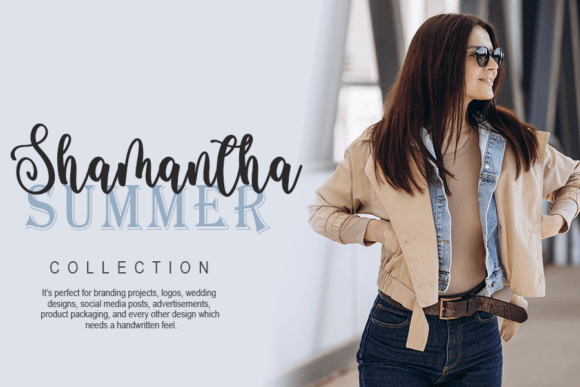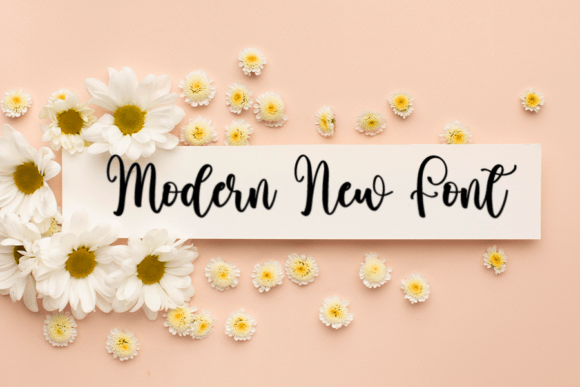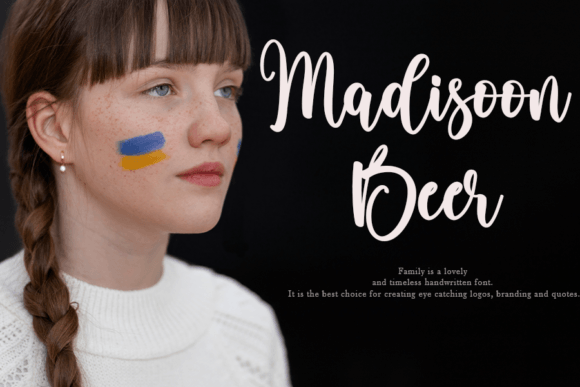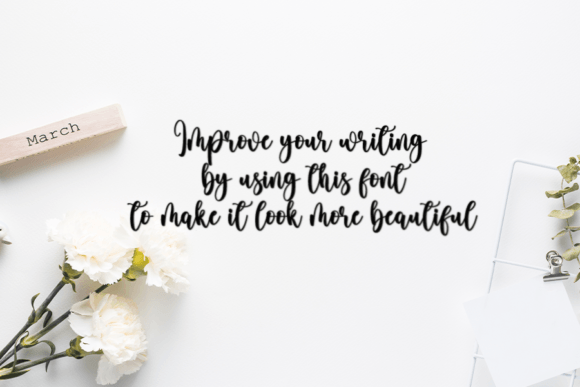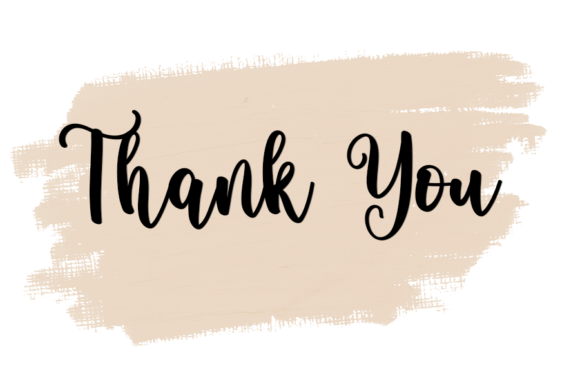
Candy Floss Font: The Sweetest Addition to Your Design Collection
Are you on the hunt for a font that embodies the whimsy and charm of celebration days? Look no further than the Candy Floss Font! This delightful, handwritten font is perfect for adding a touch of sweetness to your designs, whether you’re creating wedding invitations, greeting cards, or any other project that requires a soft, characterful flair.
The Charm of Candy Floss Font
The Candy Floss Font is a characterful and cute handwritten font that is sure to capture the hearts of designers and crafters alike. Its unique, whimsical feel makes it an excellent choice for designs that require a personal touch. Whether you’re looking to create eye-catching wedding invitations, heartfelt greeting cards, or festive party decorations, this font is sure to bring a smile to your face and a touch of magic to your designs.
What Makes Candy Floss Font So Special?
So, what sets the Candy Floss Font apart from other fonts in your collection? Here are just a few features that make it a standout:
- Characterful and Cute: The Candy Floss Font boasts a charming, handwritten feel that’s perfect for adding a personal touch to your designs.
- PUA Encoded: This font is PUA (Private Use Area) encoded, which means you can easily access all the glyphs and ligatures. This makes it simple to get the most out of your font and create unique, eye-catching designs.
- Perfect for Celebration Days: From weddings and anniversaries to birthdays and holidays, the Candy Floss Font is the perfect choice for any celebration.
Using Candy Floss Font in Your Designs
So, how can you use the Candy Floss Font in your designs? The possibilities are endless! Here are a few ideas to get you started:
- Wedding Invitations: Create beautiful, one-of-a-kind wedding invitations that set the tone for a magical and memorable day.
- Greeting Cards: Add a personal touch to your greeting cards with the Candy Floss Font’s charming, handwritten feel.
- Party Decorations: Use the Candy Floss Font to create festive party decorations, such as banners, garlands, and more.
- Digital Designs: The Candy Floss Font is also perfect for digital designs, such as social media graphics, blog posts, and more.
Tips and Tricks for Getting the Most Out of Candy Floss Font
To get the most out of the Candy Floss Font, here are a few tips and tricks to keep in mind:
- Experiment with Different Sizes: Don’t be afraid to experiment with different font sizes to find the perfect fit for your design.
- Play with Colors: The Candy Floss Font looks great in a variety of colors, so don’t be afraid to get creative and try out different hues.
- Mix and Match: Try pairing the Candy Floss Font with other fonts to create a unique and eye-catching design.
In conclusion, the Candy Floss Font is a sweet and charming addition to any design collection. Its unique, whimsical feel makes it perfect for celebration days, and its PUA encoding makes it easy to use and customize. Whether you’re a designer, crafter, or simply someone who loves to create, the Candy Floss Font is sure to bring a touch of magic to your designs. So why wait? Download the Candy Floss Font today and start creating your own sweet and charming designs!